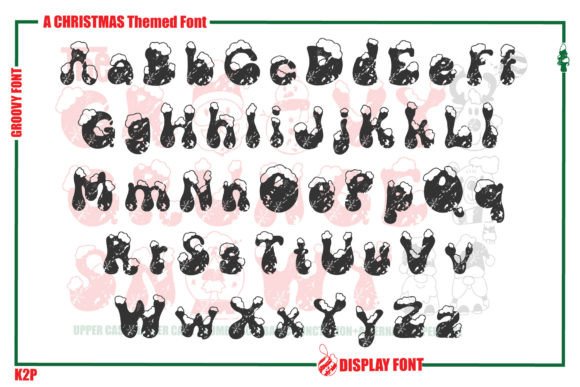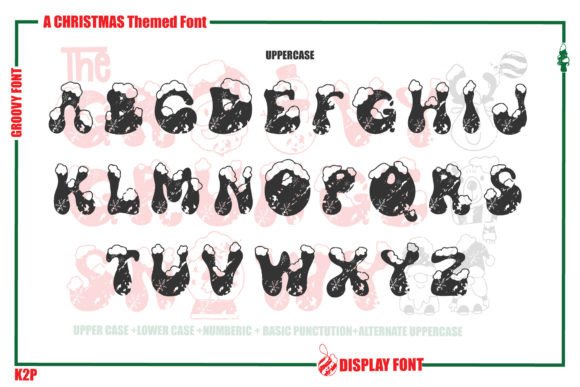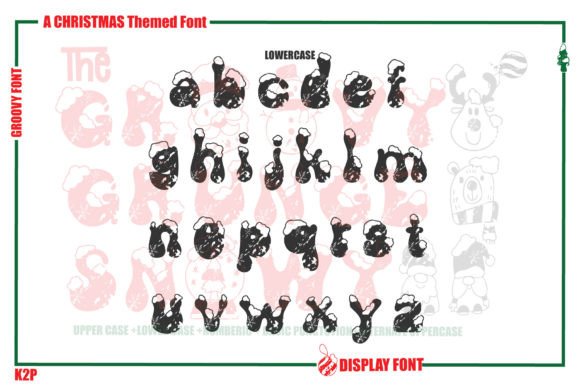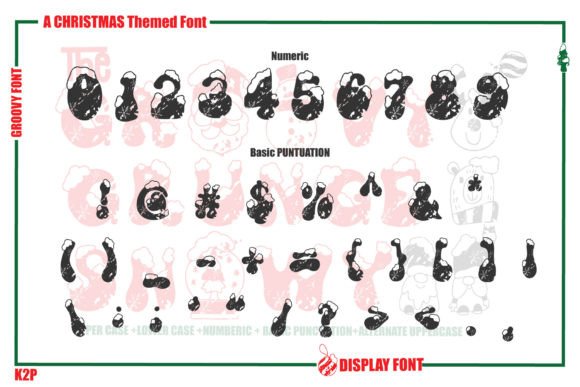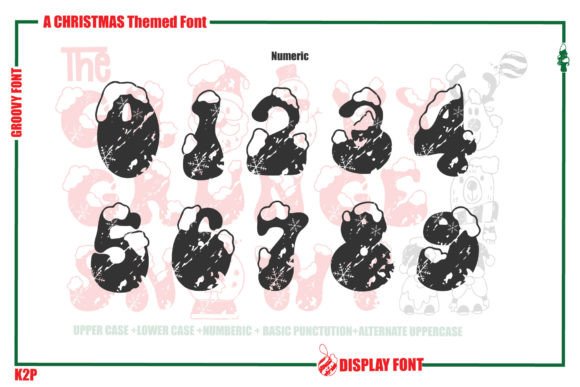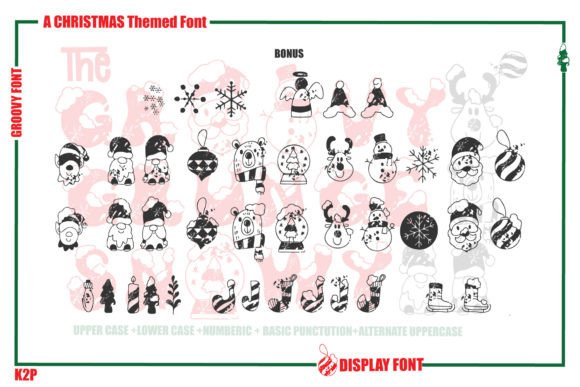
Groovy Grunge Snowy Font: Add a Touch of Holiday Cheer to Your Designs
Are you looking for a font that can add a dash of fun and uniqueness to your designs, especially during the Christmas holiday season? Look no further than the Groovy Grunge Snowy Font! This decorative font is perfect for designers and crafters who want to create eye-catching and festive designs that stand out from the crowd.
What Makes Groovy Grunge Snowy Font So Special?
Groovy Grunge Snowy is a fun and incredibly unique decorative font that can be used for various design ideas, particularly those related to the Christmas Holiday. Its distinctive style is sure to add a touch of holiday cheer to any project. Whether you’re creating Christmas cards, holiday-themed posters, or festive social media graphics, this font is sure to make your designs shine.
One of the best features of the Groovy Grunge Snowy Font is that it is PUA (Private Use Area) encoded. This means that you can access all the glyphs and swashes with ease, giving you maximum flexibility and creative control over your designs. With PUA encoding, you can easily access and use the font’s built-in features, such as ligatures, ornaments, and stylistic alternates, to create unique and visually appealing designs.
The Groovy Grunge Snowy Font offers endless design possibilities for crafters and designers. You can use it to create:
- Christmas cards and invitations
- Holiday-themed posters and flyers
- Festive social media graphics and posts
- Unique gift tags and wrapping paper designs
- Custom holiday-themed merchandise, such as mugs, t-shirts, and tote bags
Why Choose Groovy Grunge Snowy Font?
So, why choose the Groovy Grunge Snowy Font for your holiday designs? Here are just a few reasons:
- Unique and eye-catching style: The Groovy Grunge Snowy Font has a distinctive style that is sure to grab attention and add a touch of holiday cheer to your designs.
- Versatile: The font can be used for a wide range of design projects, from Christmas cards to social media graphics.
- High-quality: The font is designed to be high-quality and clear, making it perfect for printing and digital use.
Tips for Using Groovy Grunge Snowy Font
Here are a few tips for using the Groovy Grunge Snowy Font in your designs:
- Experiment with different colors and textures: The Groovy Grunge Snowy Font looks great in a variety of colors and textures, so don’t be afraid to experiment and find the perfect combination for your design.
- Use it with other festive fonts: Pair the Groovy Grunge Snowy Font with other festive fonts to create a unique and eye-catching design.
- Add some holiday-themed graphics: Add some holiday-themed graphics, such as snowflakes or holly, to your design to make it even more festive.
The Groovy Grunge Snowy Font is a fun and unique decorative font that is perfect for designers and crafters who want to add a touch of holiday cheer to their designs. With its PUA encoding and versatile design, it’s easy to use and offers endless design possibilities. Whether you’re creating Christmas cards, holiday-themed posters, or festive social media graphics, the Groovy Grunge Snowy Font is sure to make your designs shine.